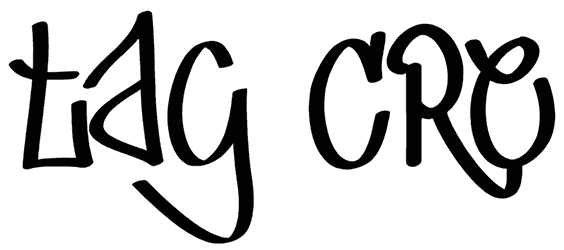
Menor Font
Menor font is a riotous explosion of strokes that defy conventions and capture the rebellious spirit of the streets. This graffiti font has bold lines and angles that show off its artistic flair wherever it appears.
Using this fancy font, you can make a bold statement that challenges the status quo without the need for lowercase letters and numbers. So if you want to evoke a sense of art in talking to the street and creative people, keep Menor in the mix.